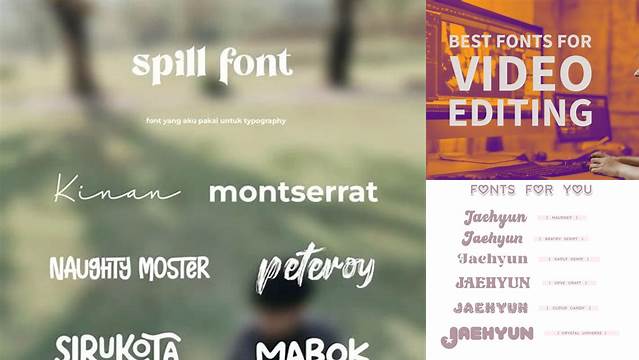
Free Fonts For Video Editing: The Ultimate Guide
Choosing the right font can make or break your video project, guys. A great font can enhance your message, create visual appeal, and make your videos look professional. But, finding the perfect font, especially a free font, can feel like searching for a needle in a haystack. This guide is here to help! We'll explore everything you need to know about free fonts for video, from where to find them to how to use them effectively. So, let's dive in and make your videos stand out!
1. Best Websites for Free Fonts for Videos
Finding reliable sources for free fonts is crucial. You don't want to download something that comes with a virus or has unclear licensing. Several websites offer a fantastic selection of free fonts specifically tailored for video use. These platforms often curate fonts that are both aesthetically pleasing and legible on screen. Some popular choices include Google Fonts, DaFont, Font Squirrel, and Creative Market's freebies section. Google Fonts is a treasure trove, offering hundreds of open-source fonts that are easy to use and integrate into your video editing software. DaFont boasts a vast library with various styles, from script fonts to modern sans-serifs. Font Squirrel focuses on high-quality, commercially licensed free fonts, making it a great option for professional projects. Creative Market’s freebies section changes regularly, offering a rotating selection of fonts that are usually top-notch. When exploring these sites, make sure to check the licensing information for each font. While they are free, some may have restrictions on commercial use. Always ensure the font's license aligns with your project's needs to avoid any copyright issues. Understanding the different types of licenses, such as the Open Font License (OFL), is essential for responsible font usage. You can usually find the license details in a text file within the font's download package or on the website where you downloaded it. Taking the time to check these details can save you a lot of headaches down the line.
3. Top Free Sans-Serif Fonts for Video
For video projects, sans-serif fonts are often a go-to choice, especially for on-screen text. They're clean, modern, and generally very legible, making them perfect for titles, lower thirds, and captions. When you’re aiming for a sleek and professional look, you can’t go wrong with a free sans-serif font. Some of the top options include Roboto, Open Sans, Montserrat, and Lato. Roboto is a Google font that's incredibly versatile, with a wide range of weights and styles that make it suitable for just about any project. Open Sans is another popular choice, known for its friendly appearance and excellent readability. Montserrat is a slightly bolder option, perfect for headlines and titles that need to grab attention. Lato is a more rounded sans-serif, giving it a softer, more approachable feel. When choosing a sans-serif font for your video, think about the overall tone and style you’re trying to achieve. Are you going for something modern and minimalist? Or perhaps something a bit more classic and understated? Each of these fonts has its own unique personality, so take the time to experiment and see which one best fits your vision. And remember, legibility is key. A beautiful font is useless if your audience can’t read it easily on screen. Consider the size of the text, the background color, and the overall complexity of the design when making your final decision.
4. Best Free Serif Fonts for Video
While sans-serif fonts dominate the digital world, serif fonts definitely have their place in video projects too. They often convey a sense of tradition, elegance, and authority, making them great choices for certain types of content. If you’re working on a historical documentary, a classic film intro, or any project where you want to evoke a sense of timelessness, a free serif font might be just what you need. Some excellent free serif font options include Playfair Display, Merriweather, and Lora. Playfair Display is a high-contrast serif that’s perfect for headlines and titles. It has a sophisticated and refined look that can add a touch of class to your videos. Merriweather is a more versatile option, designed specifically for on-screen reading. It’s highly legible and comes in a variety of weights, making it suitable for both body text and headings. Lora is another beautiful serif font with a contemporary feel. It has slightly rounded terminals that give it a warm and inviting appearance. When using serif fonts in your videos, keep in mind that they can sometimes be less legible on screen than sans-serif fonts, especially at smaller sizes. Make sure to choose a font with good readability and pay attention to the spacing and kerning to ensure your text is clear and easy to read. Also, consider using serif fonts sparingly, perhaps just for titles or key text elements, to avoid overwhelming your audience.
5. Free Script and Handwritten Fonts for Video
Want to add a touch of personality and flair to your videos? Free script and handwritten fonts can be a fantastic way to do it! These fonts bring a personal, human touch to your projects, making them feel more authentic and engaging. They’re perfect for creating titles, intros, or even adding handwritten-style annotations to your videos. But, you need to use them carefully, guys. A little goes a long way, and legibility is always key. Some awesome free script and handwritten fonts include Brush Script MT, Pacifico, and Great Vibes. Brush Script MT is a classic script font that has a bold, energetic feel. It’s great for making a statement and adding a touch of dynamism to your videos. Pacifico is a more casual script font with a retro vibe. It’s perfect for projects that need a laid-back, friendly feel. Great Vibes is an elegant, flowing script font that’s ideal for adding a touch of sophistication and romance. When using script and handwritten fonts, remember that they can be tricky to read if used in large blocks of text. It’s best to reserve them for shorter phrases or single words, such as titles or names. Also, pay close attention to the spacing between letters and lines to ensure your text is legible. And don’t overdo it! Too many script fonts can make your video look cluttered and unprofessional. Use them sparingly and pair them with a clean, readable sans-serif font for the main body text. This will help you strike the right balance between personality and clarity.
6. How to Choose the Right Font for Your Video Style
Okay, so you've got all these free fonts, but how do you actually choose the right one for your video? It's not just about picking the prettiest font, guys. You need to consider the style and tone of your video, your target audience, and the overall message you're trying to convey. The right font can enhance your message, while the wrong font can distract from it. Think about your video's genre and target audience first. Is it a serious documentary? A fun vlog? A corporate presentation? A serif font might be perfect for a serious documentary, conveying a sense of authority and tradition. A playful script font could be great for a vlog, adding a personal touch. A clean sans-serif font is often the best choice for corporate presentations, ensuring clarity and professionalism. Consider the mood you want to create. Do you want your video to feel modern and sleek? Classic and elegant? Bold and energetic? The font you choose should reflect that mood. Use bolder fonts for impactful messages and lighter fonts for more subtle text. Think about legibility. No matter how beautiful a font is, it's useless if your audience can't read it. Choose fonts that are clear and easy to read on screen, even at smaller sizes. Test your fonts on different devices and screen sizes to make sure they look good everywhere. Don’t be afraid to experiment and try different fonts. Mix and match fonts to create visual interest, but stick to a maximum of two or three fonts per project to avoid a cluttered look. And most importantly, trust your gut. If a font feels right for your video, go with it!
7. Pairing Fonts for Visual Harmony
Speaking of mixing and matching, let's talk about font pairing. Using two or three different free fonts in your video can add visual interest and create a more dynamic look. But, it’s crucial to do it right! Pairing fonts effectively is an art, and it can make or break your video’s overall aesthetic. The goal is to create visual harmony, not chaos. A good rule of thumb is to pair a serif font with a sans-serif font. This creates a nice contrast while still maintaining a cohesive look. For example, you could use Playfair Display (a serif) for your titles and Open Sans (a sans-serif) for your body text. Another approach is to pair fonts from the same font family but with different weights or styles. For instance, you could use Roboto Bold for headlines and Roboto Regular for the main text. This creates a subtle contrast while maintaining a consistent visual style. Avoid pairing fonts that are too similar, as this can look unintentional and boring. You want your fonts to complement each other, not compete. Also, be careful not to pair fonts that have conflicting personalities. A very formal serif font might clash with a playful script font, creating a jarring effect. Use online tools like FontPair or Typewolf for inspiration. These websites offer curated font pairings that can give you a great starting point for your own projects. Experiment with different combinations and see what works best for your video’s style and tone. And remember, less is often more. Stick to a maximum of three fonts per project to avoid overwhelming your audience.
8. Free Fonts for Titles and Lower Thirds
Titles and lower thirds are essential elements in video, and choosing the right font for them is crucial. These are the text elements that viewers see most often, so they need to be clear, legible, and visually appealing. When selecting free fonts for titles and lower thirds, consider the purpose of each element. Titles need to grab attention and convey the main message of your video. Lower thirds, on the other hand, are used to identify speakers or provide additional information, so legibility is paramount. For titles, you might want to choose a bolder or more stylized font that stands out from the rest of the text. Serif fonts like Playfair Display or sans-serif fonts like Montserrat can work well for titles, depending on the overall style of your video. Just make sure the font is easy to read at a glance. For lower thirds, legibility is the top priority. Choose a clean, simple sans-serif font like Roboto or Open Sans. These fonts are highly readable even at small sizes, making them perfect for lower thirds. Avoid using script or handwritten fonts for lower thirds, as they can be difficult to read quickly. Consider the size and positioning of your text. Titles should be large enough to be easily seen, but not so large that they overwhelm the screen. Lower thirds should be smaller and positioned in a way that doesn't obstruct the main action in your video. Use contrasting colors to make your text stand out against the background. White text on a dark background or dark text on a light background is generally the most legible. Animate your titles and lower thirds to add visual interest. Simple fades or slides can make your text more dynamic and engaging.
9. Best Free Fonts for Captions and Subtitles
Captions and subtitles are crucial for making your videos accessible to a wider audience, guys. Choosing the right free fonts for captions and subtitles can significantly improve the viewing experience. You want a font that’s not only legible but also doesn’t distract from the video itself. Legibility is king when it comes to captions and subtitles. Your audience needs to be able to read the text quickly and easily, without straining their eyes. Simple sans-serif fonts are generally the best choice for this purpose. Fonts like Arial, Helvetica, and Roboto are all excellent options. They’re clean, clear, and highly readable, even at small sizes. Avoid using script or handwritten fonts for captions and subtitles. These fonts can be difficult to read, especially for viewers who are watching your video on a small screen or who have visual impairments. Consider the size and positioning of your text. Captions and subtitles should be large enough to be easily seen, but not so large that they cover up too much of the screen. Position them at the bottom of the screen, where they’re easy to read without obstructing the main action in your video. Use a contrasting background to make your text stand out. A black or dark gray background with white or light-colored text is generally the most legible option. Most video editing software allows you to customize the appearance of your captions and subtitles. Experiment with different fonts, sizes, colors, and backgrounds to find the combination that works best for your video. And always test your captions and subtitles on different devices and screen sizes to make sure they’re readable in all situations.
10. Free Fonts for Animated Videos
Animated videos often require fonts that can complement the dynamic visuals and storytelling. The free fonts you choose should not only be legible but also align with the overall style and tone of your animation. Whether you're creating explainer videos, motion graphics, or character animations, selecting the right font can enhance the impact of your message. For animated videos, sans-serif fonts are frequently favored due to their clean and modern appearance. Fonts like Montserrat, Raleway, and Open Sans are versatile choices that work well in various animation styles. They provide excellent readability and can be used for both titles and body text. If your animation has a playful or whimsical theme, you might consider using a more unique free font that reflects this. Rounded sans-serif fonts like Baloo or Bubblegum Sans can add a touch of fun and personality to your project. Just be sure to use these fonts sparingly and ensure they remain legible. When incorporating text into your animations, think about how the font interacts with the visuals. Does the font complement the movement and energy of the animation? Does it fit the color palette and overall design? Experiment with different fonts and styles to find the perfect match. Animation offers the opportunity to animate the text itself, adding another layer of visual interest. Consider animating the font's appearance, size, or position to create dynamic titles or emphasize key points. Remember to maintain consistency in your font choices throughout the video. Using too many different fonts can make your animation look cluttered and unprofessional. Stick to a maximum of two or three fonts to ensure a cohesive and polished final product.
11. Free Fonts for YouTube Videos
YouTube is a visual platform, and the fonts you use in your videos can significantly impact viewer engagement. Choosing the right free fonts for YouTube videos can help you create a professional and appealing look for your channel. Whether it's for your intros, outros, thumbnails, or on-screen text, the fonts you select should be legible and align with your content's style. For YouTube thumbnails, bold and eye-catching fonts are essential. Your thumbnail is the first impression viewers have of your video, so you want to make it stand out. Sans-serif fonts like Impact, Bebas Neue, and Montserrat Extra Bold are popular choices for thumbnails due to their strong visual presence. In your video intros and outros, you have more flexibility to experiment with different fonts. However, readability should still be a priority. Sans-serif fonts like Roboto and Open Sans are excellent options, as they are clean and easy to read on various devices. If you want to add a touch of personality, you can consider using a script font for your name or channel name, but use it sparingly to maintain legibility. On-screen text, such as titles, lower thirds, and captions, requires clear and simple fonts. Again, sans-serif fonts are generally the best choice for this purpose. Choose fonts that are easy to read at a glance and avoid overly decorative fonts that might distract viewers. Pay attention to font size and contrast. Your text should be large enough to be easily seen, even on small screens. Use contrasting colors to make your text stand out against the background. For example, white text on a dark background or dark text on a light background is often the most effective. Consistency is key when it comes to fonts on your YouTube channel. Choose a few fonts that you like and stick to them across all your videos and thumbnails. This will help you create a cohesive brand identity and make your channel more recognizable.
12. Free Fonts for Social Media Videos
Social media videos often have different requirements than videos for platforms like YouTube. Viewers on social media are often scrolling quickly through their feeds, so your video needs to grab their attention within seconds. The free fonts you use should be eye-catching and legible, even on small screens. For short-form video platforms like TikTok and Instagram Reels, bold and impactful fonts are a great choice. Sans-serif fonts like Bebas Neue, Montserrat, and Open Sans Extra Bold can help your text stand out in a fast-paced environment. Consider using animated text to further capture viewers' attention. Animated fonts can add a dynamic element to your videos and make your message more memorable. However, make sure the animation doesn't distract from the text's readability. For longer-form videos on platforms like Facebook and Twitter, you have more flexibility in your font choices. However, legibility should still be a top priority. Choose free fonts that are easy to read on mobile devices, as most social media users watch videos on their smartphones. Consider using captions or subtitles in your social media videos, as many viewers watch videos with the sound off. Choosing clear and legible fonts for your captions is essential for ensuring your message is understood. Experiment with different font colors and backgrounds to find combinations that work well on social media. Bright, contrasting colors can help your text stand out, but avoid using colors that clash or are difficult to read. Consistency in your font choices across your social media videos can help you build a strong brand identity. Select a few fonts that you like and stick to them to create a cohesive look and feel for your content.
13. Free Fonts for Corporate Videos
Corporate videos often require a professional and polished look. The free fonts you use should reflect your brand's identity and convey a sense of credibility and trustworthiness. Whether you're creating training videos, marketing videos, or internal communications, selecting the right fonts is essential for maintaining a professional image. For corporate videos, clean and simple sans-serif fonts are generally the best choice. Fonts like Arial, Helvetica, and Open Sans are classic options that project a sense of professionalism and clarity. They are easy to read on screen and work well in various corporate settings. If you want to add a touch of personality while still maintaining a professional look, you can consider using a slightly more stylized sans-serif font like Lato or Montserrat. These fonts have a modern and approachable feel that can help your videos connect with your audience. Avoid using overly decorative or script fonts in corporate videos, as they can appear unprofessional or distracting. Stick to fonts that are easy to read and project a sense of competence. Consistency in your font choices is crucial for building a strong brand identity. Use the same fonts across all your corporate videos and marketing materials to create a cohesive and recognizable brand image. Consider your brand's color palette when choosing font colors. Use colors that complement your brand's colors and ensure your text is easy to read against the background. Pay attention to font size and spacing. Your text should be large enough to be easily seen, but not so large that it overwhelms the screen. Use appropriate spacing between letters and lines to enhance readability. And remember, less is more when it comes to fonts in corporate videos. Stick to a maximum of two or three fonts to avoid a cluttered or unprofessional look.
14. Free Fonts for Educational Videos
Educational videos need to be clear, concise, and engaging. The free fonts you choose should support the learning process by being highly legible and non-distracting. Whether you're creating tutorials, lectures, or explainer videos, selecting the right fonts can help your students focus on the content and retain information effectively. For educational videos, readability is the top priority. Simple sans-serif fonts are the best choice for ensuring your text is easy to read on screen. Fonts like Open Sans, Lato, and Roboto are excellent options due to their clear and clean appearance. Avoid using script or decorative fonts in educational videos, as they can be difficult to read and may distract students from the learning material. Consider using different font weights and styles to emphasize key points and headings. For example, you could use a bold font for titles and a regular font for body text. This can help students quickly identify the main ideas in your video. Use consistent font sizes and styles throughout your educational videos. This will help create a cohesive and professional look and prevent students from being distracted by changing fonts. Pay attention to font color and contrast. Use colors that are easy on the eyes and provide sufficient contrast against the background. White text on a dark background or dark text on a light background is generally the most legible option. Use visual aids like diagrams, charts, and animations to complement your text and make your educational videos more engaging. And don't forget to use closed captions to ensure your videos are accessible to all students.
15. Free Fonts for Travel Videos
Travel videos often aim to capture the essence of a destination and evoke a sense of adventure. The free fonts you choose can play a significant role in setting the mood and conveying the unique character of the place you're showcasing. For travel videos, you have more flexibility in your font choices than you might for corporate or educational videos. You can use fonts to reflect the style and atmosphere of the location you're filming. If you're creating a travel video about a modern, urban destination, you might choose a sleek sans-serif font like Montserrat or Bebas Neue. These fonts have a contemporary feel that can complement the visuals of a bustling city. For travel videos about more rustic or historical destinations, you might consider using a serif font like Playfair Display or a handwritten-style font like Pacifico. These fonts can add a touch of character and personality to your videos, evoking a sense of history and charm. When using more stylized fonts, be sure to use them sparingly and ensure they remain legible. Legibility is still essential, especially for titles and on-screen text that provide information about the destination. Consider the color palette of your video when choosing font colors. Use colors that complement the visuals and help your text stand out against the background. Experiment with animated text to add a dynamic element to your travel videos. Animated fonts can help capture the energy and excitement of travel. Use your fonts to tell a story. Your font choices can help you convey the mood and atmosphere of the destination and engage your viewers on an emotional level. And remember, free fonts can be a great way to add a personal touch to your travel videos and make them stand out from the crowd.
16. Free Fonts for Real Estate Videos
Real estate videos need to be both informative and visually appealing. The free fonts you use should help showcase properties in the best possible light and convey a sense of professionalism and trust. Whether you're creating virtual tours, property listings, or agent introductions, selecting the right fonts is essential for making a positive impression on potential clients. For real estate videos, clean and modern sans-serif fonts are often the best choice. Fonts like Open Sans, Lato, and Montserrat project a sense of professionalism and clarity, which is crucial for conveying trust and reliability. Consider using different font weights to highlight key information, such as property addresses or prices. A bold font can help these details stand out and grab viewers' attention. When using on-screen text in your real estate videos, prioritize legibility. Choose fonts that are easy to read at a glance and avoid overly decorative fonts that might distract viewers. Use consistent font styles and sizes throughout your video to create a cohesive and professional look. This will help reinforce your brand identity and make your videos more memorable. Pay attention to font color and contrast. Use colors that complement the visuals of the property and ensure your text is easy to read against the background. Consider using a branded font that aligns with your real estate agency's overall branding. This will help create a consistent brand identity across all your marketing materials. And remember, free fonts can be a valuable resource for real estate professionals looking to create high-quality videos on a budget.
17. Free Fonts for Food Videos
Food videos are all about visual appeal, and the free fonts you use can contribute to the overall aesthetic and make your videos even more appetizing. Whether you're creating cooking tutorials, restaurant reviews, or food vlogs, selecting the right fonts can help you engage your audience and make their mouths water. For food videos, you have a bit more flexibility in your font choices than you might for more formal videos. You can use fonts to reflect the style and cuisine of the food you're showcasing. If you're creating a video about a casual, family-style restaurant, you might choose a friendly and approachable sans-serif font like Open Sans or Lato. For videos about more upscale or gourmet cuisine, you might consider using a more elegant serif font like Playfair Display or a stylish script font like Pacifico. When using script fonts, be sure to use them sparingly and ensure they remain legible. Legibility is still crucial, especially for recipe instructions or ingredient lists. Consider using different font colors to complement the food you're showcasing. Warm colors like red, orange, and yellow can help evoke a sense of hunger and excitement. Use visual cues like font size and animation to highlight key information, such as ingredient names or cooking times. Experiment with different font pairings to create a visually appealing and balanced look. For example, you might pair a bold sans-serif font for titles with a more delicate serif font for body text. And remember, free fonts can be a delicious way to add personality and flavor to your food videos.
18. How to Install Free Fonts on Your Computer
Okay, you've found some awesome free fonts, but now what? How do you actually get them onto your computer so you can use them in your video editing software? Don't worry, guys, it's super easy! Installing free fonts is a straightforward process that only takes a few minutes. The first step is to download the font files from a reputable source, like Google Fonts, DaFont, or Font Squirrel. These websites offer a wide variety of free fonts that are safe and easy to install. Once you've downloaded the font files, they'll usually be in a ZIP folder. You'll need to extract the files from the ZIP folder before you can install them. To do this, simply right-click on the ZIP folder and select